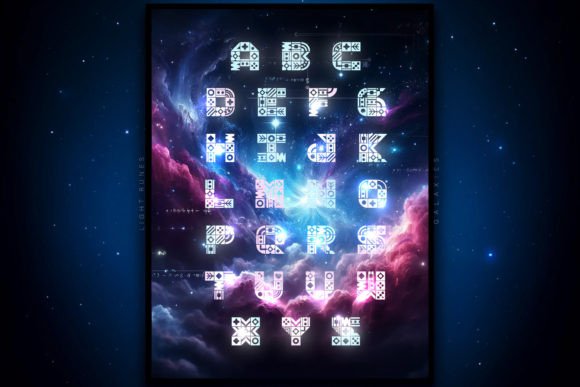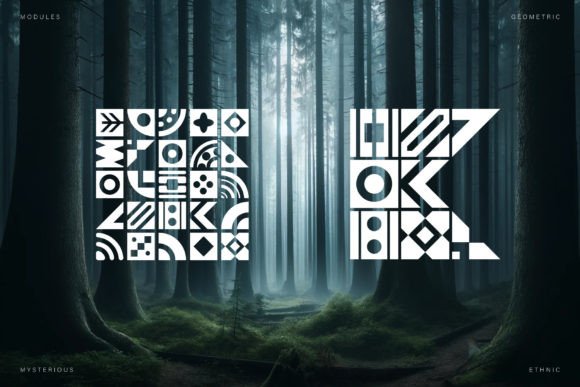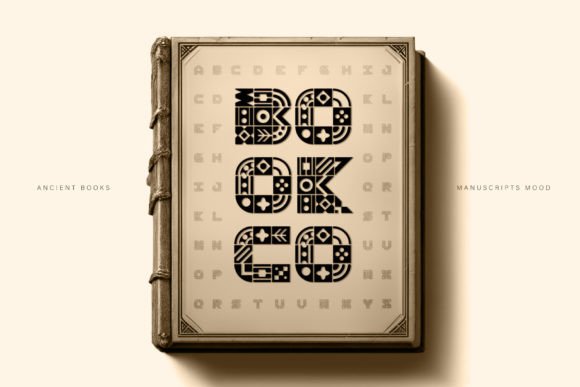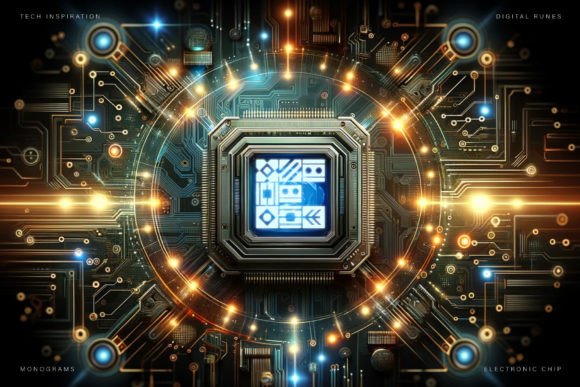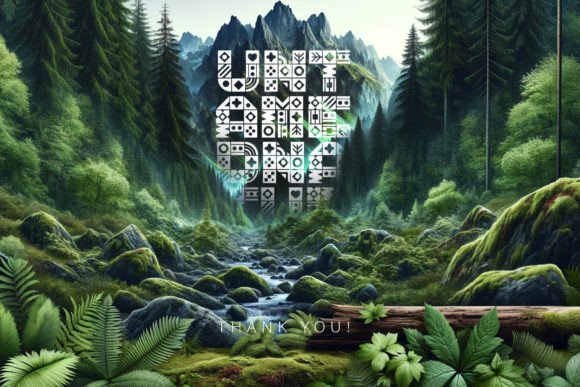
Introduction to Norse Ancient Alphabet Font Font
Fonts play a crucial role in design, and the Norse Ancient Alphabet Font font is a typeface that brings both character and versatility to any project. Whether you’re working on a branding project, a website, or a print design, the Norse Ancient Alphabet Font font offers a unique style that can elevate your work.
The Norse font — a perfect blend of ancient mysticism and modern design.
Unveil the Mystique and techno-futurism This font encapsulates the enigmatic allure of runes, reimagined through a contemporary lens, making it an essential tool for designers and artists who wish to evoke a sense of intrigue and timeless mystery in their creations.
Key Features of Norse Ancient Alphabet Font Font
Why Choose Norse Ancient Alphabet Font Font?
The Norse Ancient Alphabet Font font is more than just a typeface – it’s a design tool that helps you communicate your message with style and clarity. Its unique character set and versatile design make it suitable for a wide range of applications, from elegant invitations to bold headlines.
With its carefully crafted letterforms and balanced proportions, the Norse Ancient Alphabet Font font ensures readability and visual appeal across all mediums.
What makes Norse Ancient Alphabet Font font special?
The Norse Ancient Alphabet Font font stands out with its unique design, exceptional readability, and versatility across various design applications.